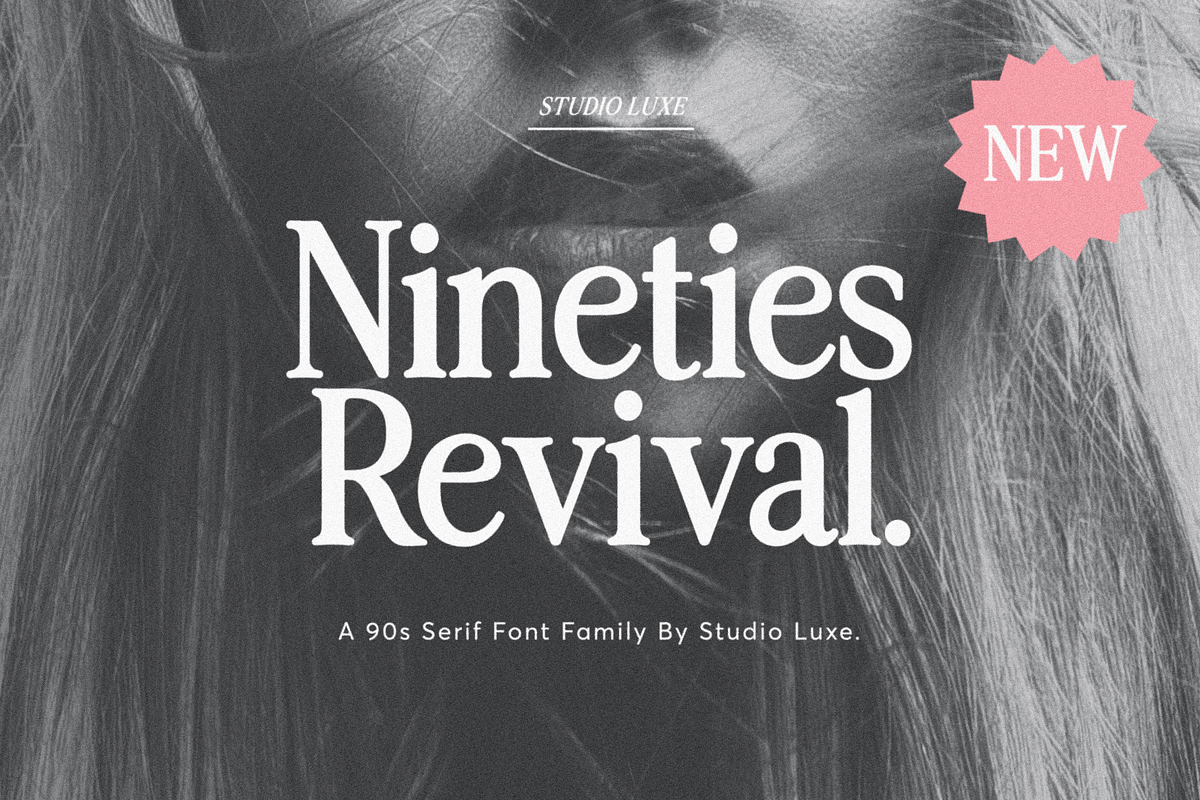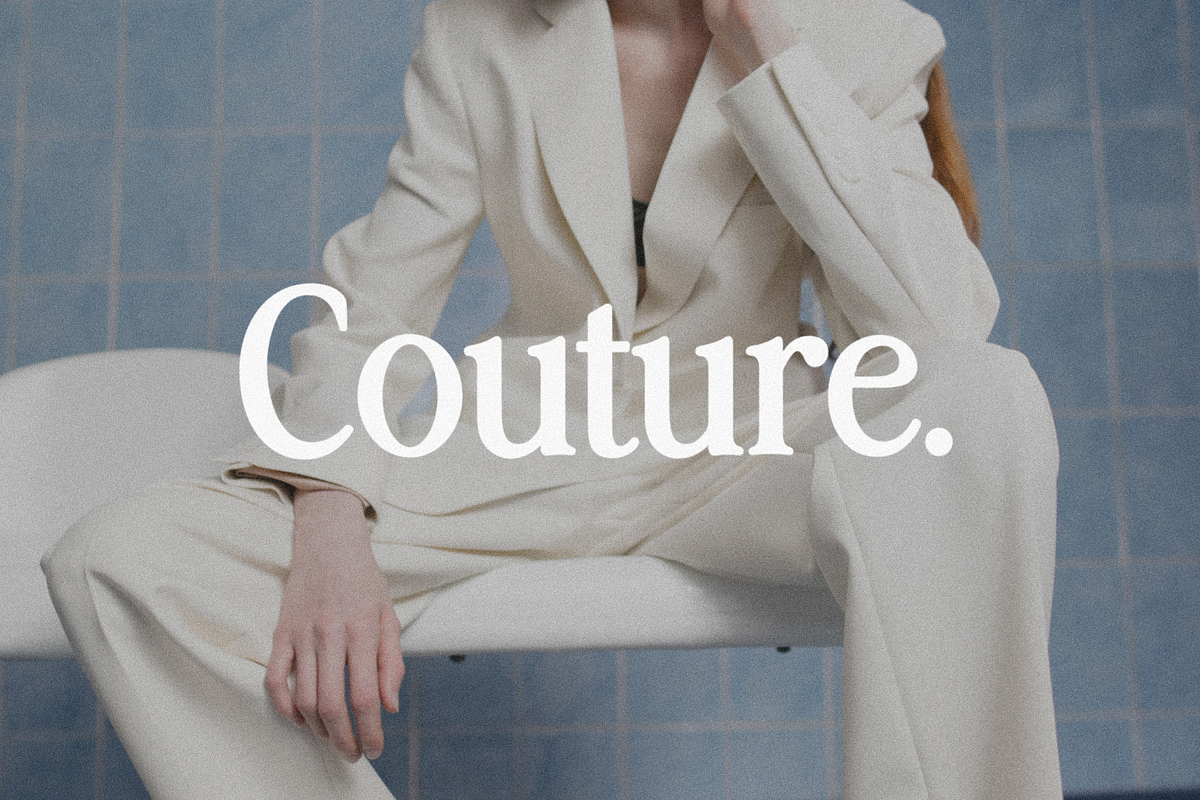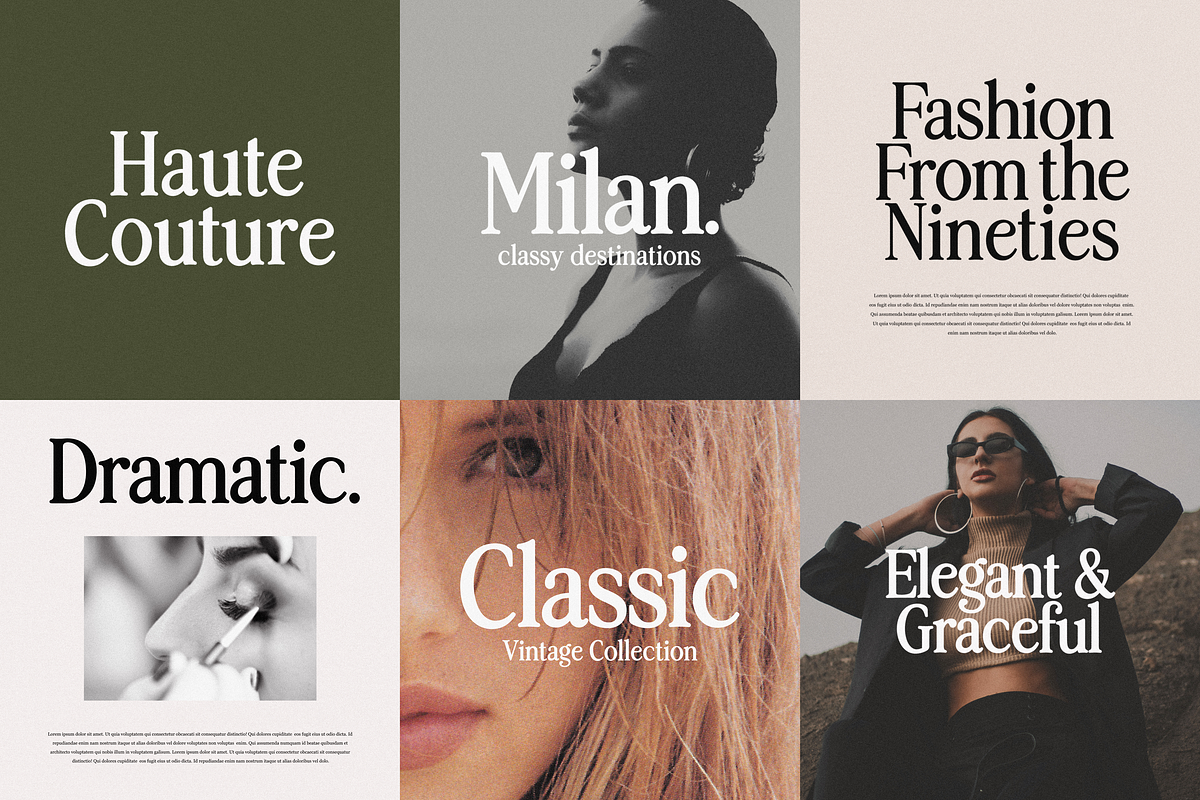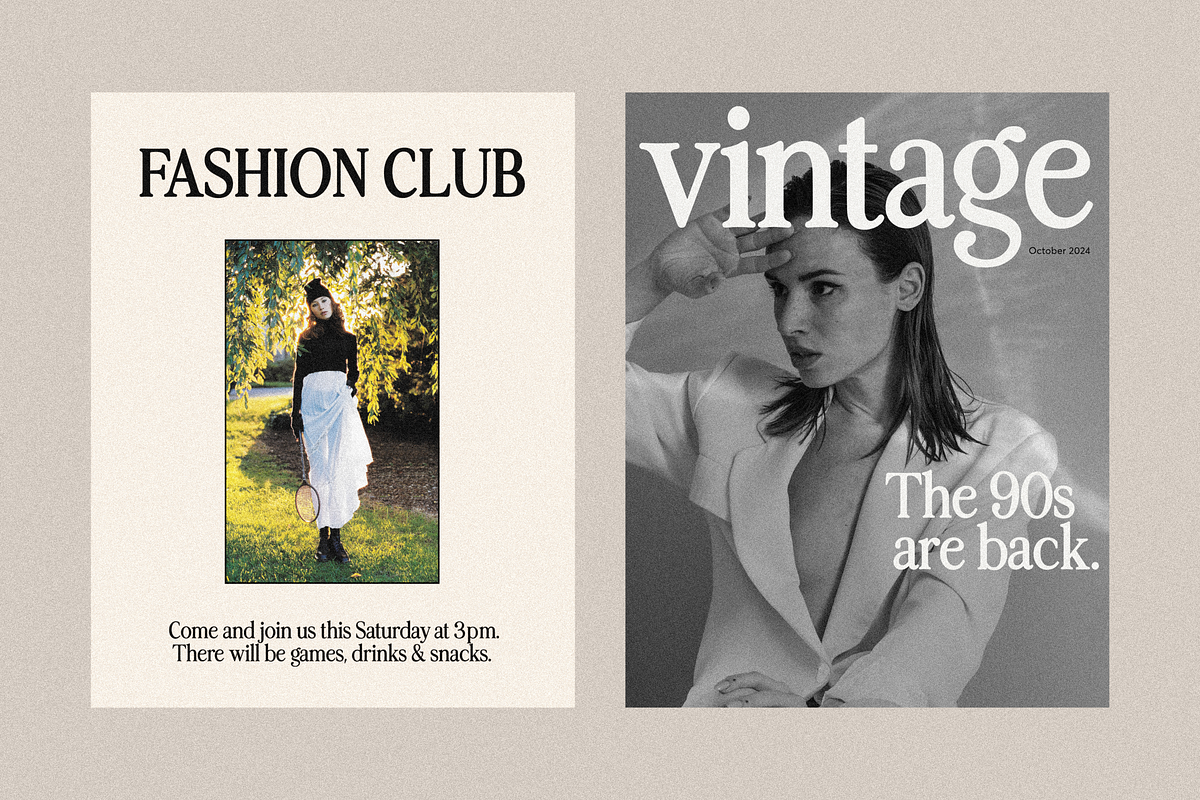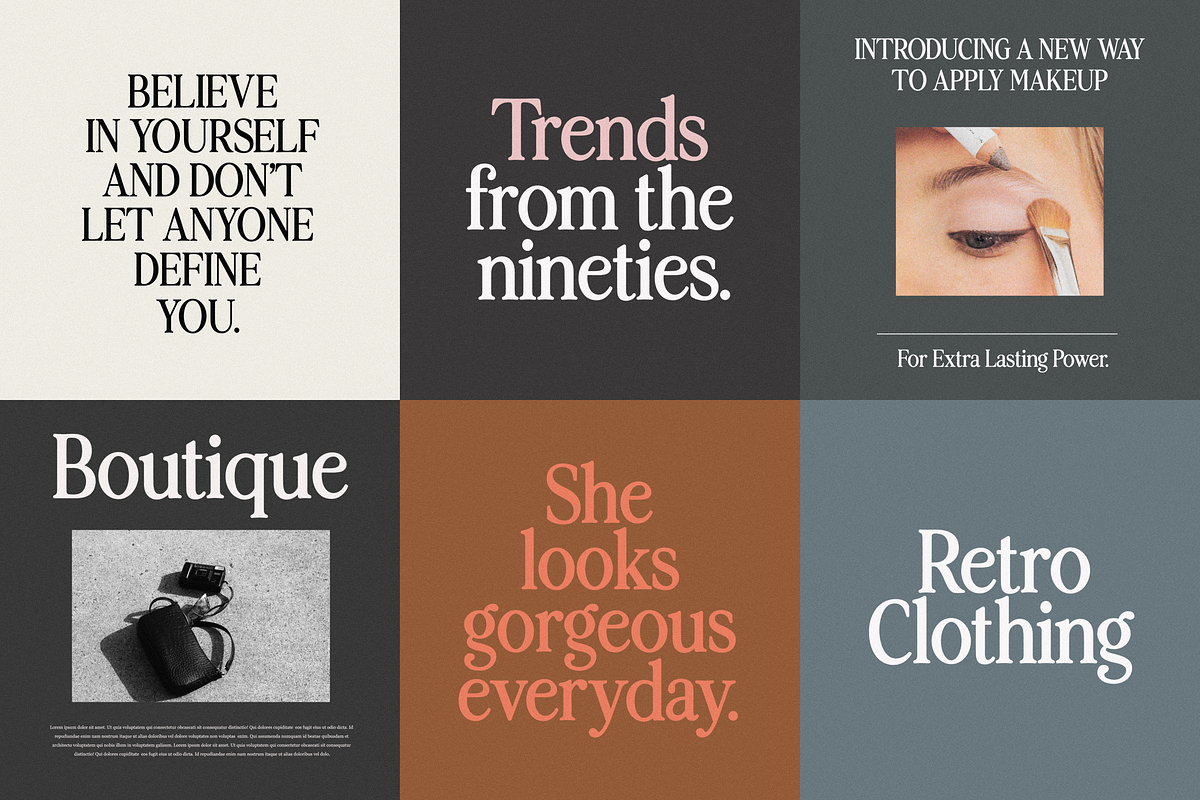
Nineties Revival Serif Font Family
Introducing the Nineties Revival Serif Font Family! A brand new chic 90s serif font family. This font family includes three weights (Light/Regular/Semi-Bold). This font collection was inspired by 90s fashion magazine ads and 90s imagery.
Design tips: This font looks great in lowercase or all-caps letters. Lowercase lettering gives you a more subtle design. Use the all-caps letters for contrast and impact on your type designs.
Consider tightening the letterspacing for large titles. Tightening the letterspacing can create a more compact and impactful look. It’s important to loosen the letterspacing a bit for smaller body text to enhance its readability.